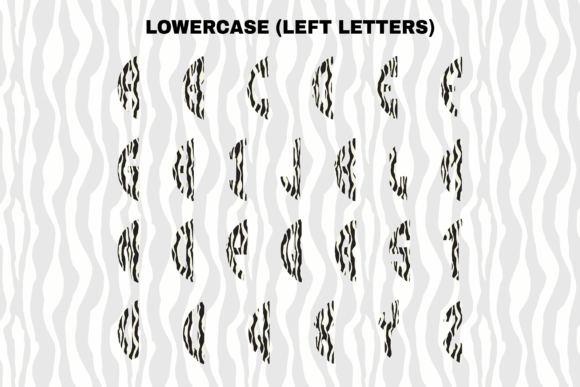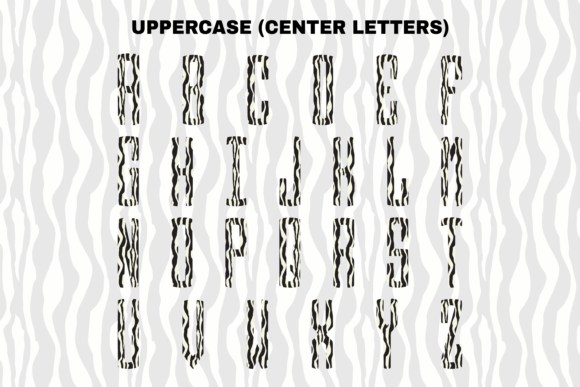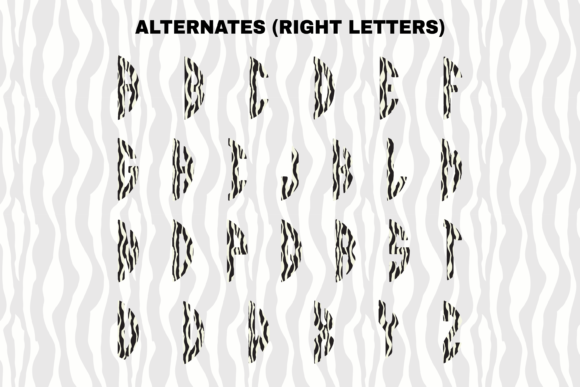
About Zebra Circle Font
Zebra Circle is an incredibly cool 3-letter monogram font that features cute zebra elements. It offers an easy customization option where you can simply type the letters and create a personalized design. Whether you’re working on custom designs, DIY crafts, or any creation that requires a lovely touch, Zebra Circle font is an excellent choice. Here’s why it stands out:
1. Unique Zebra Design: Zebra Circle font showcases a unique and captivating design with adorable zebra elements incorporated into the circular monogram letters. The combination of the zebra patterns and the circular layout creates a visually appealing and stylish effect.
2. Versatile Application: Zebra Circle font can be used in various design projects, making it highly versatile. Whether you’re creating custom graphics, designing logos, monograms, or working on crafts and personal projects, this font adds a distinctive touch to your creations. Its cute zebra elements make it particularly suitable for projects related to animals, wildlife, nature, fashion, and more.
3. Personalization and Customization: With Zebra Circle font, personalization and customization are at your fingertips. By simply typing the three letters of your choice, the font will generate a monogram design with the cute zebra elements arranged in a circular pattern. This feature allows you to easily create personalized designs and add a unique touch to your projects.
4. DIY Crafts and Personal Projects: Zebra Circle font is a great choice for DIY crafts and personal projects. Whether you’re creating invitations, stationery, home decor, or any other handmade items, incorporating Zebra Circle font will instantly elevate the visual appeal of your creations. The cute zebra elements in this font bring a playful and charming aesthetic to your designs.
5. Eye-catching Design: The combination of the circular monogram layout and the cute zebra elements makes Zebra Circle font visually captivating. It grabs attention and makes a statement in your designs. Whether you’re using it for print or digital media, Zebra Circle font will make your creations stand out and leave a lasting impression.
6. Stylish and Playful: Zebra Circle font strikes a balance between style and playfulness. The elegant circular monogram design, combined with the cute zebra elements, creates a visually interesting and fun aesthetic. This makes it a suitable choice for projects that require a touch of sophistication and a hint of whimsy.
In summary, whether you’re working on custom designs, DIY crafts, or any creation that requires a lovely touch, Zebra Circle font is an amazing choice. Its unique zebra-themed design and easy customization feature make it versatile and appealing. Embrace the cute zebra elements and let your creativity shine with Zebra Circle font.